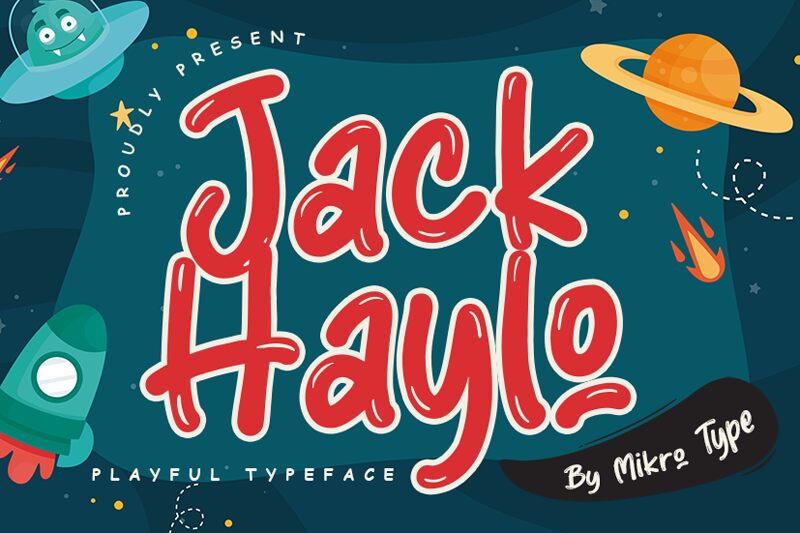
The playful cartoon style of Jack Haylo by Mikro Type Std is perfect for any project. It is perfect for creating logos, social media graphics, flyers, and more. Let your creativity shine with this unique display font!
Jack Haylo
Mikro Type Std